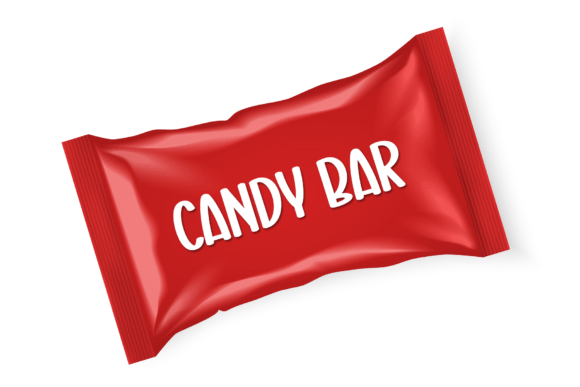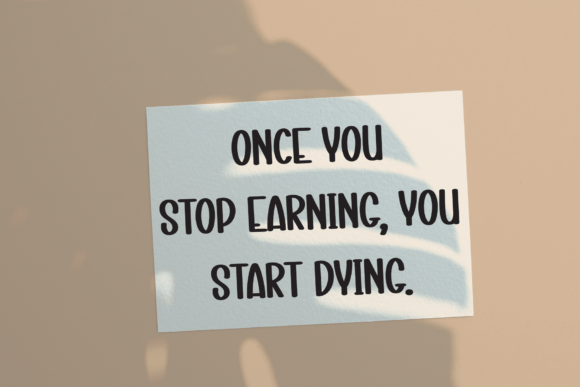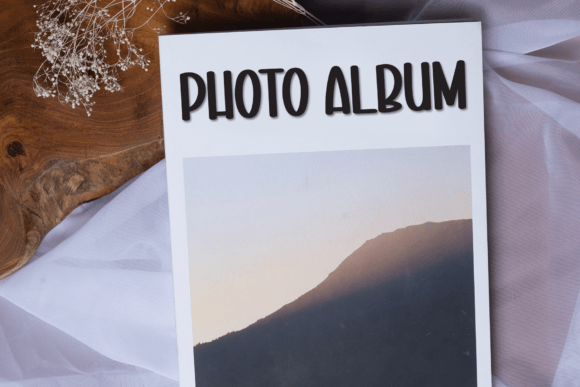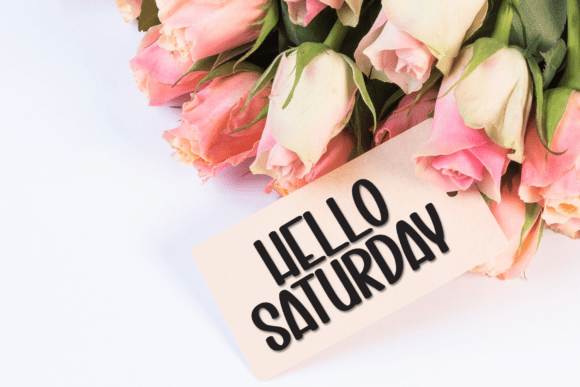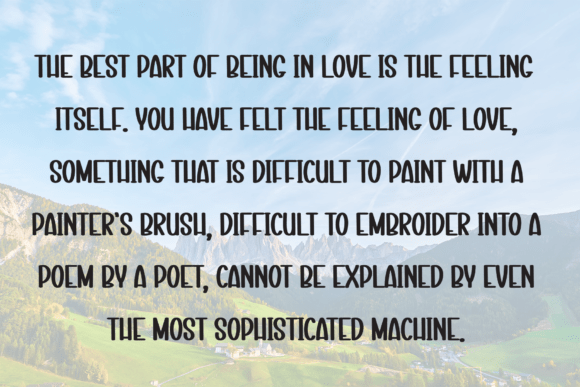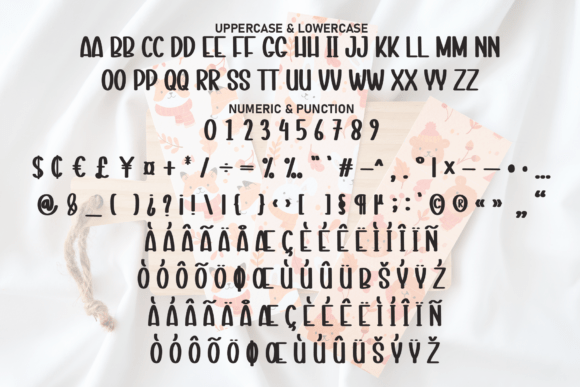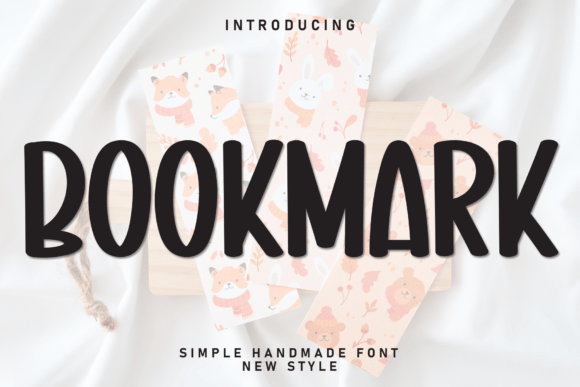
Introducing Bookmark Font: The Perfect Blend of Warmth and Clarity
In the world of typography, a good font can make all the difference in the success of a design project. For designers and crafters looking for a font that exudes warmth and clarity, Bookmark Font is an excellent choice. Designed to bring a touch of approachability and genuineness to your projects, Bookmark Font is a casual and neat display font that is sure to impress.
Clean Structure, Approachable Style
Bookmark Font boasts a clean structure that provides a solid foundation for a wide range of design applications. Its approachable style makes it perfect for branding, headlines, and everyday designs. The font’s balanced letterforms offer exceptional readability, making it easy for your audience to quickly grasp the message you’re trying to convey.
Key Features of Bookmark Font
- Clean and Neat Design: Bookmark Font features a clean and neat design that provides a professional look and feel to your projects.
- Warm and Inviting: The font’s warm and inviting style makes it perfect for designs that require a personal touch.
- Balanced Letterforms: The balanced letterforms of Bookmark Font provide exceptional readability and charm, making every message feel genuine and inviting.
- Versatile: Bookmark Font is versatile and can be used for a wide range of design applications, including branding, headlines, and everyday designs.
Why Choose Bookmark Font?
With so many fonts available, why choose Bookmark Font? Here are a few reasons why designers and crafters love this font:
- High Readability: The font’s high readability makes it perfect for designs that require a clear and concise message.
- Unique Style: Bookmark Font has a unique style that sets it apart from other fonts, making it perfect for designers looking for something different.
- Support for Multiple Languages: Bookmark Font supports multiple languages, making it a great choice for designers working on international projects.
Design Applications for Bookmark Font
Bookmark Font is a versatile font that can be used for a wide range of design applications, including:
- Branding: Use Bookmark Font to create a strong brand identity that exudes warmth and approachability.
- Headlines: Bookmark Font is perfect for headlines, providing a clear and concise message that grabs the reader’s attention.
- Everyday Designs: Use Bookmark Font for everyday designs, such as social media graphics, flyers, and brochures.
- Digital and Print Media: Bookmark Font can be used for both digital and print media, making it a great choice for designers working on multi-channel projects.
Tips for Using Bookmark Font
In conclusion, Bookmark Font is a casual and neat display font that is perfect for designers and crafters looking for a font that exudes warmth and clarity. With its clean structure, approachable style, and balanced letterforms, Bookmark Font is a versatile font that can be used for a wide range of design applications. Whether you’re working on a branding project, headline, or everyday design, Bookmark Font is a great choice.